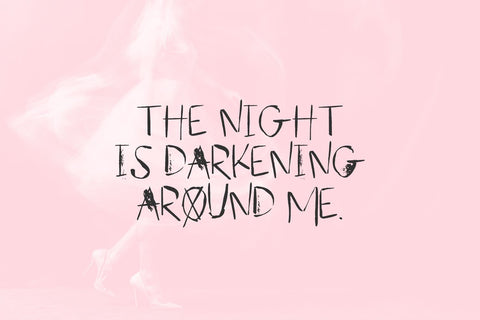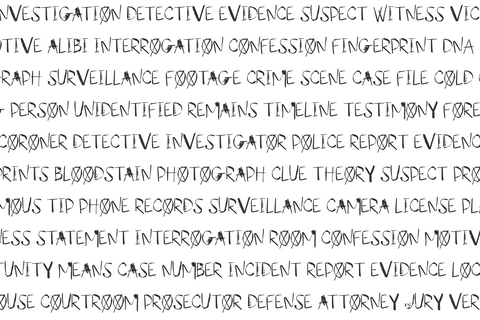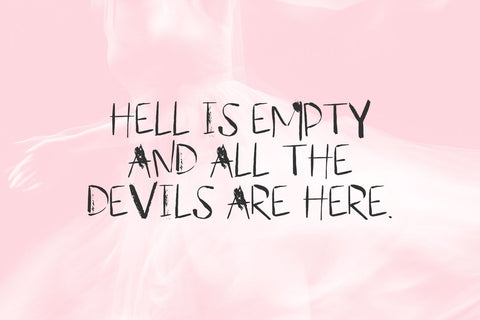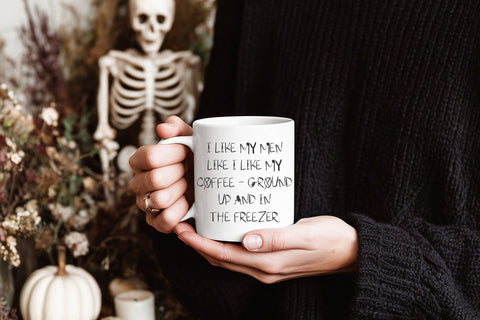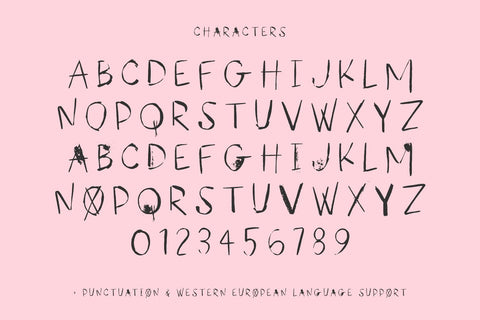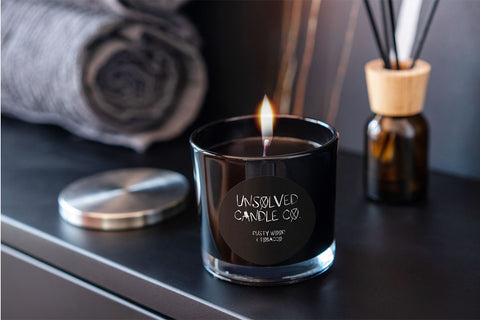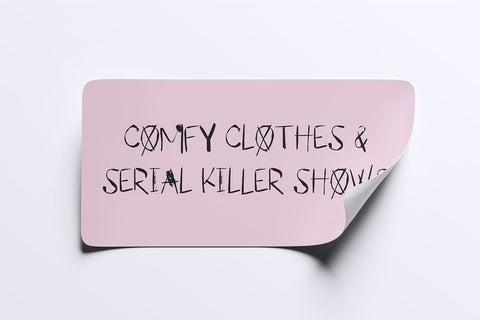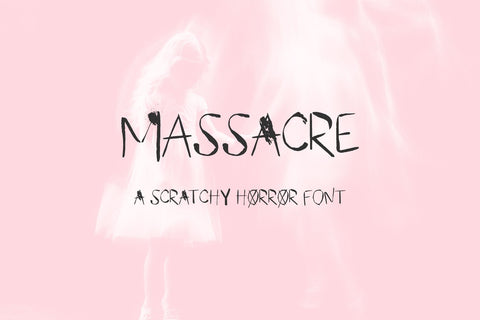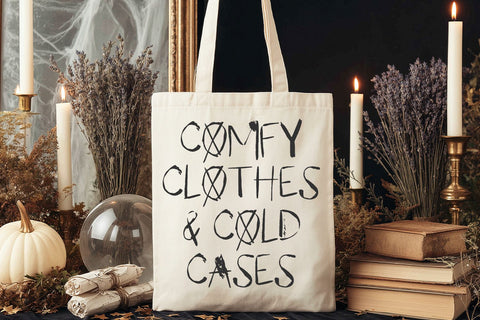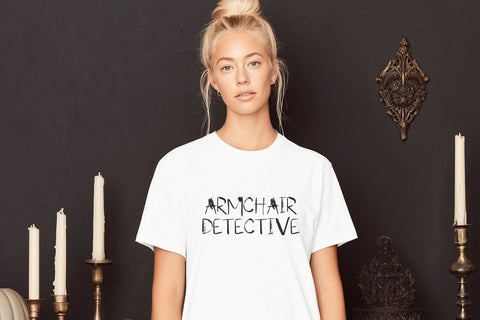
Massacre Display Font
Massacre is an edgy all-caps Halloween font. It’s a bit scratchy & inky. Massacre is textured, so it’s best suited for print and digital applications and not vinyl cutting - definitely print & cut on this font, y’all, it’s going to be a cut & weeding nightmare. Some of the uppercase characters in the lowercase slots do show some variance - inky spots, thicker texture, scratchiness - lending itself to a more customizable look & feel. Use it for horror posters, true crime-inspired shirts, ghost-themed graphics, candles, tote bags, mugs, stickers, and other printed Halloween merchandise.
- full uppercase characters programmed into upper & lowercase slots
- numbers + punctuation
- Western European language support - English, French, Spanish, Portuguese (Brazil), Portuguese (Portugal), Italian, German (Germany), German (Austria), Dutch, Danish, Swedish, Norwegian (Bokmål and Nynorsk), Finnish, Icelandic, Irish, Welsh